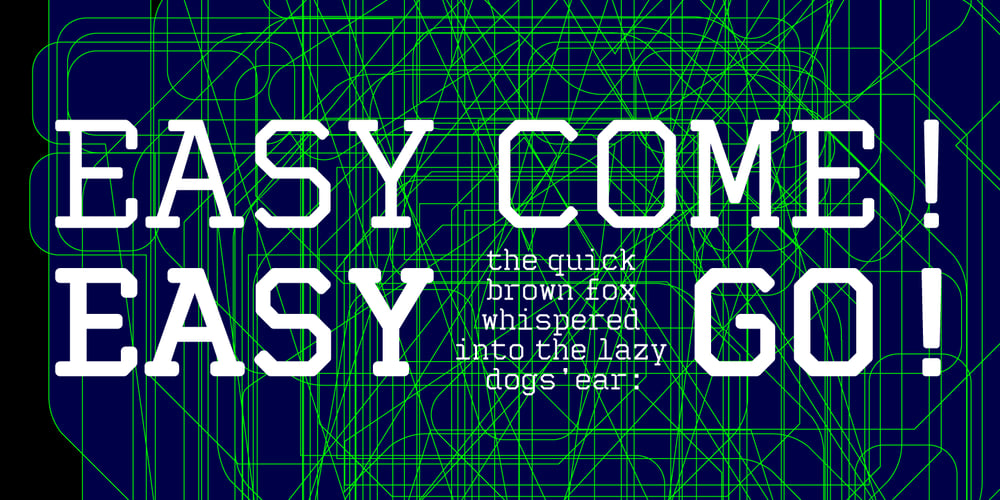
AT Move RiFF RaFF
AT Move RiFF RaFF font
AT Move RiFF RaFF Font Family was designed by André Toet, Jasper Nijssen and published by André Toet Design. AT Move RiFF RaFF contains 3 styles and family package options. RiFF/RaFF is kind of a Typewriter-Old-Skool typeface specially designed for Arie Lenoir (Lenoirschuring) one of the best Dutch printers. It’s quite a simple and straightforward monospace font that comes in two different weights. What’s in a name: a RiFF is a tune or melody of a guitar tab in a song and RaFF just means rubble. According to me RiFF-RaFF is a great name and so is this new typeface: Just Use It ! Concept/Art Direction/Design: André Toet © 2017